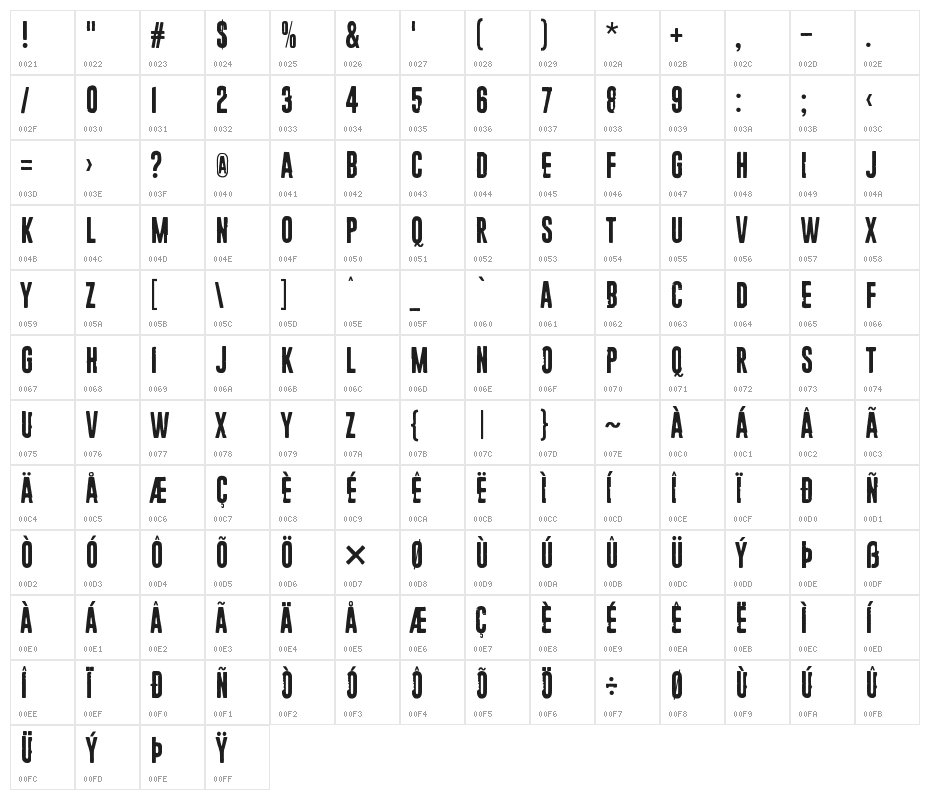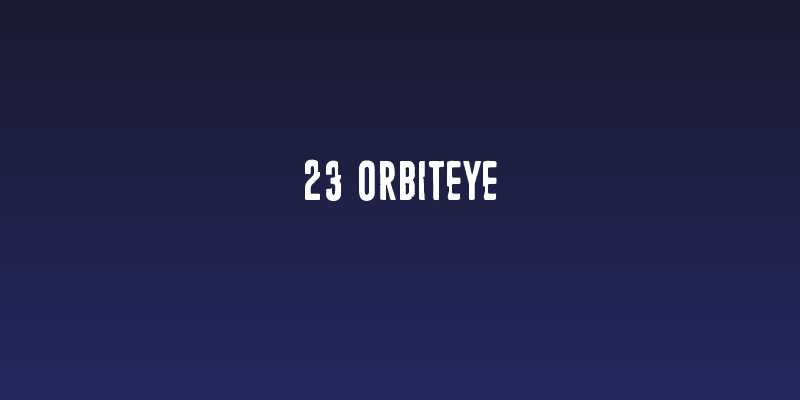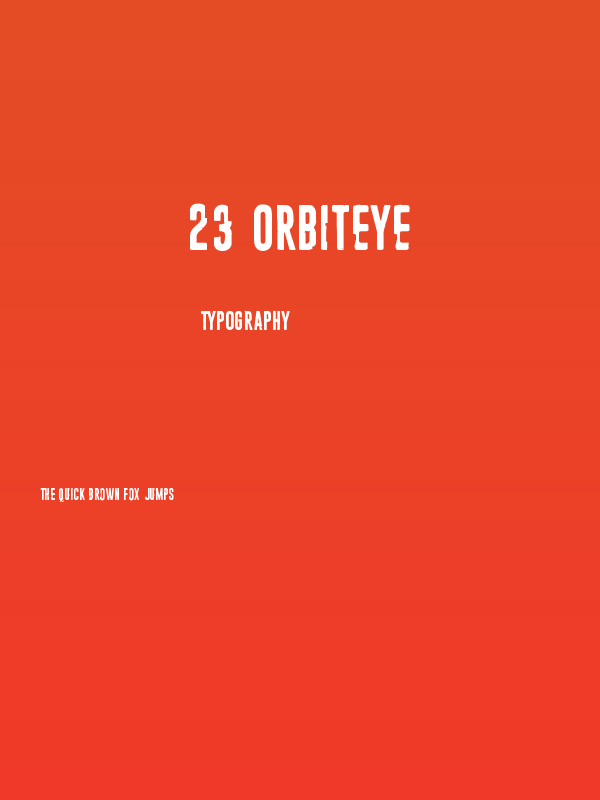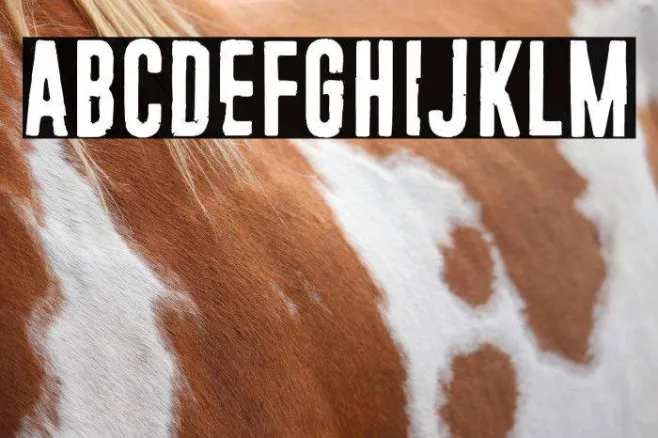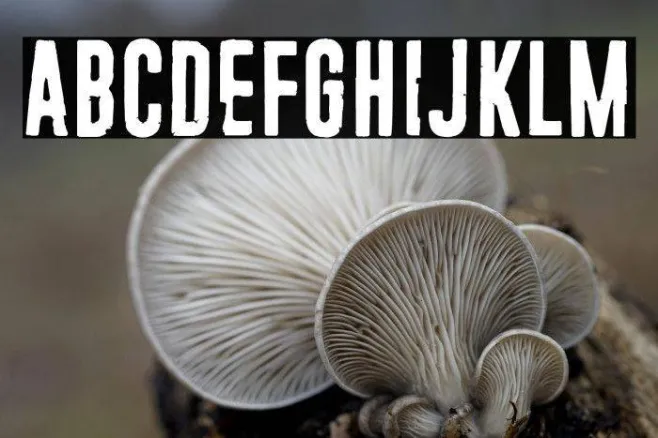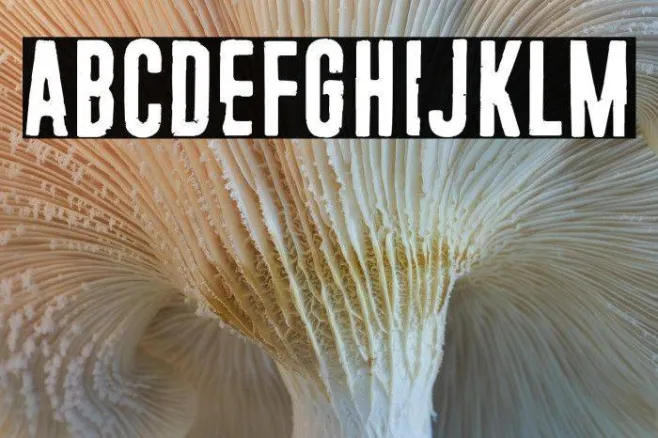
23 Orbiteye Font
23 Orbiteye Description
This font features a bold and distressed style, with a rugged, textured appearance that gives it a vintage, industrial feel. The characters are uppercase and have a slightly uneven, worn look, as if they have been stamped or printed with a rough surface. The numbers and special characters follow the same aesthetic, maintaining consistency throughout the set. The font's boldness and unique texture make it stand out, ideal for projects that require a strong, impactful visual presence. Its distressed nature adds character and depth, making it suitable for designs that aim to convey a sense of history or authenticity.
| Overall Style | Vintage, Industrial |
| Proposed Projects | Ideal for posters, logos, branding, packaging, and any design needing a strong, vintage aesthetic. |